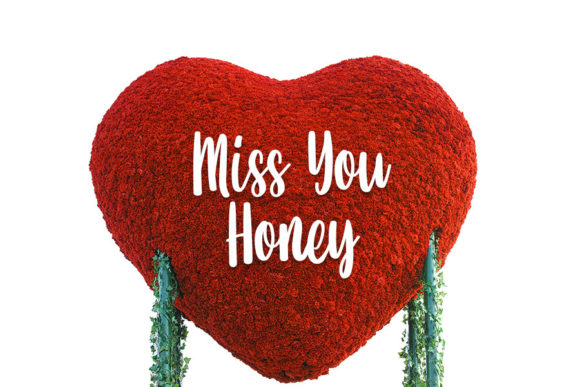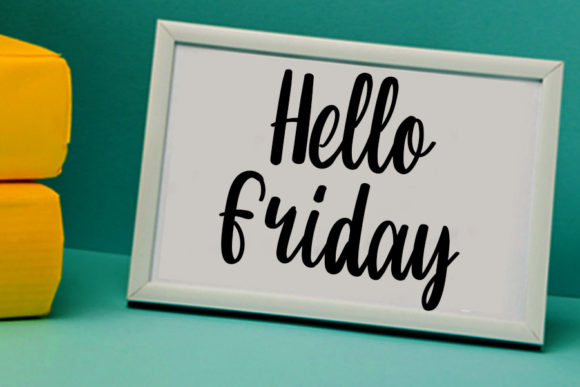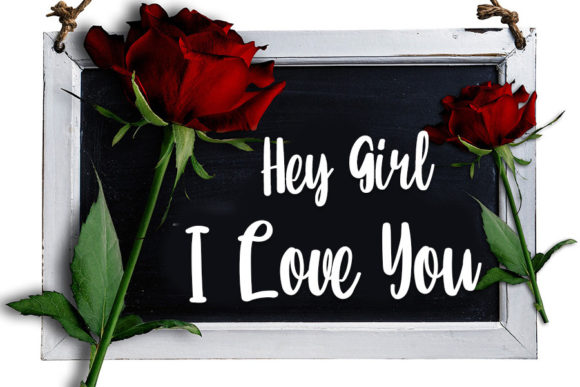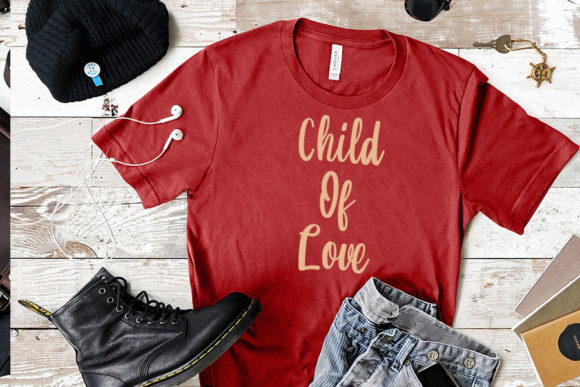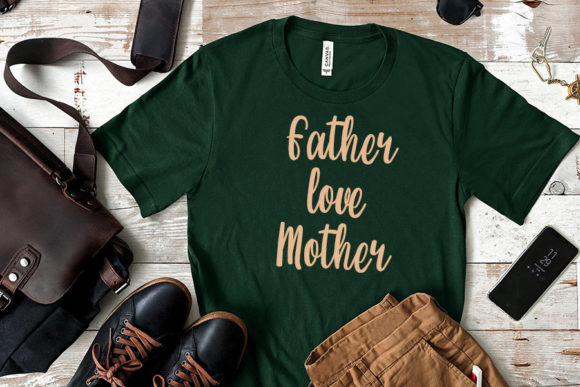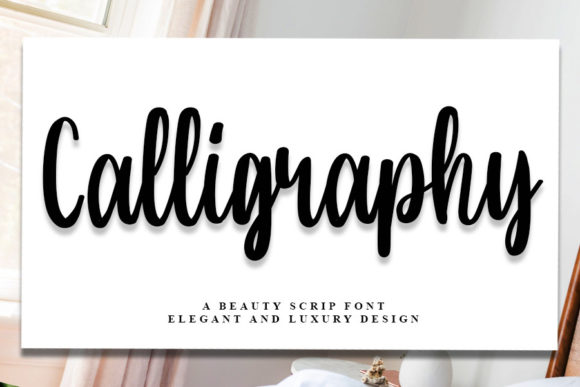
Unlock the Magic of Calligraphy Fonts: Elevate Your Designs and DIY Projects
Calligraphy is a timeless art form that has been captivating audiences for centuries. With its elegant strokes, flourishes, and beautiful lettering, it’s no wonder that calligraphy has become a popular choice for designers, crafters, and artists. In this article, we’ll explore the world of calligraphy fonts, and how you can use them to transform your creative projects into stunning works of art.
What is a Calligraphy Font?
A calligraphy font is a type of script font that mimics the look and feel of traditional calligraphy. These fonts are carefully crafted to replicate the elegant strokes, connections, and flourishes that are characteristic of calligraphy. With a calligraphy font, you can add a touch of sophistication and elegance to your designs, making them stand out from the crowd.
The Magic of Calligraphy Fonts
Our calligraphy font, in particular, is a magical script font that has been carefully created with a touch of elegance. This font is designed to be versatile and can be used for a variety of creative projects, from Instagram posts to DIY crafts. With its beautiful lettering and flowing strokes, this font is sure to turn any creative idea into a true piece of art.
Uses for Calligraphy Fonts
Calligraphy fonts are incredibly versatile and can be used in a wide range of creative projects. Here are just a few ideas to get you started:
• Instagram Posts: Add a touch of elegance to your Instagram posts with a calligraphy font. Use it to create beautiful quotes, captions, or even Instagram stories.
• DIY Projects: Calligraphy fonts are perfect for DIY projects, such as making cards, gift tags, or other paper crafts.
• Graphic Design: Use calligraphy fonts in your graphic design projects, such as creating logos, brochures, or posters.
• Wedding Decor: Calligraphy fonts are a popular choice for wedding decor, including wedding invitations, place cards, and ceremony programs.
Tips for Using Calligraphy Fonts
Here are a few tips to keep in mind when using calligraphy fonts:
• Keep it Simple: Don’t overcomplicate your design with too many fonts or elements. Keep your design simple and let the calligraphy font be the focal point.
• Choose the Right Size: Make sure to choose a font size that is legible and visually appealing.
• Experiment with Colors: Don’t be afraid to experiment with different colors and textures to add depth and interest to your design.
In conclusion, calligraphy fonts are a powerful tool for designers and crafters who want to add a touch of elegance and sophistication to their creative projects. Our magical script font is carefully crafted with a touch of elegance, making it perfect for a wide range of projects, from Instagram posts to DIY crafts. With its beautiful lettering and flowing strokes, this font is sure to turn any creative idea into a true piece of art.